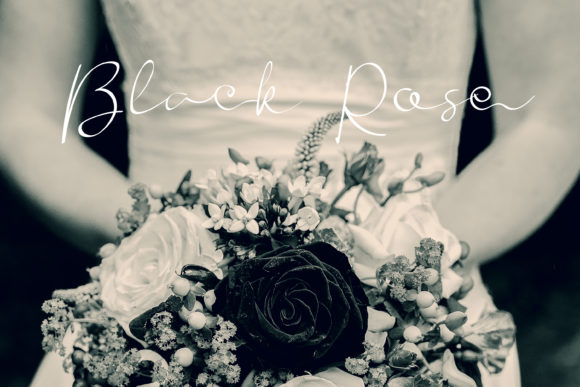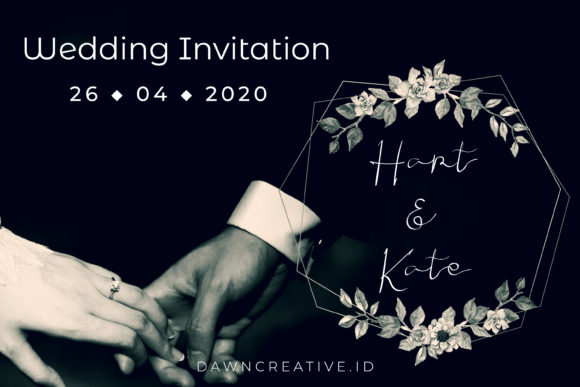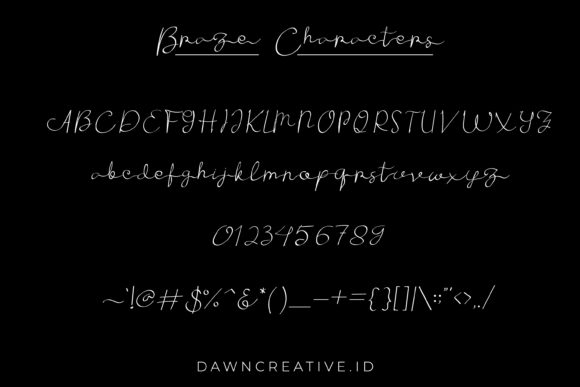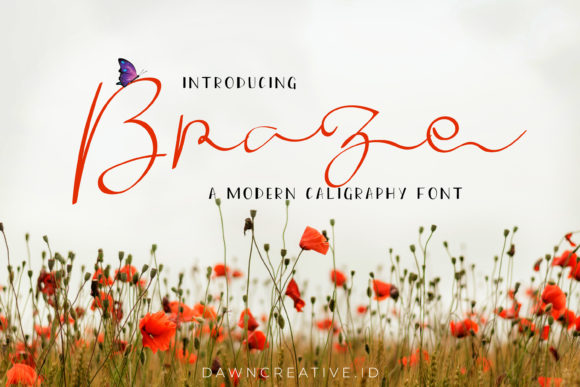
Braze Font: Elevate Your Designs with a Sweet and Casual Handwritten Style
Are you looking for a font that can add a personal touch to your designs? Look no further than Braze Font! This sweet and casual handwritten font is perfect for designers and crafters who want to create unique and eye-catching projects. In this article, we’ll explore the features and benefits of Braze Font, and show you how it can elevate your designs to the highest level.
What is Braze Font?
Braze Font is a beautifully crafted handwritten font that is designed to be both sweet and casual. Its unique and elegant style makes it perfect for a wide range of design projects, from branding and headings to wedding designs, invitations, signatures, logos, labels, and more. With Braze Font, you can add a personal touch to your designs and make them stand out from the crowd.
Key Features of Braze Font
• Handwritten style: Braze Font has a unique and elegant handwritten style that adds a personal touch to your designs.
• Sweet and casual: The font has a sweet and casual feel that makes it perfect for a wide range of design projects.
• Versatile: Braze Font can be used for branding, headings, wedding designs, invitations, signatures, logos, labels, and more.
• Easily readable: The font is designed to be easily readable, making it perfect for body text and headings.
Benefits of Using Braze Font
There are many benefits to using Braze Font in your designs. Here are just a few:
• Adds a personal touch: Braze Font adds a personal touch to your designs, making them more unique and eye-catching.
• Elevates your designs: The font’s elegant and sweet style elevates your designs to the highest level, making them perfect for professional and personal projects.
• Versatile: Braze Font can be used for a wide range of design projects, making it a great addition to your font library.
Design Ideas Using Braze Font
Braze Font is perfect for a wide range of design projects. Here are a few ideas to get you started:
• Wedding designs: Use Braze Font to create beautiful wedding invitations, programs, and decorations.
• Branding: Use the font to create unique and eye-catching logos, business cards, and marketing materials.
• Signatures: Add a personal touch to your email signatures and documents with Braze Font.
• Labels: Use the font to create custom labels for your products, gifts, or party favors.
• Invitations: Create beautiful and unique invitations for parties, events, and gatherings.
Tips for Using Braze Font
Here are a few tips for using Braze Font in your designs:
• Use it sparingly: Braze Font is a statement font, so use it sparingly to add emphasis and personality to your designs.
• Pair it with other fonts: Pair Braze Font with other fonts to create a unique and interesting contrast.
• Experiment with colors: Experiment with different colors and textures to add depth and interest to your designs.
Braze Font is a sweet and casual handwritten font that is perfect for designers and crafters who want to add a personal touch to their designs. With its unique and elegant style, Braze Font can elevate a wide range of design projects to the highest level. Whether you’re creating branding, headings, wedding designs, invitations, signatures, logos, labels, or more, Braze Font is a great choice. So why wait? Download Braze Font today and start creating beautiful and unique designs!